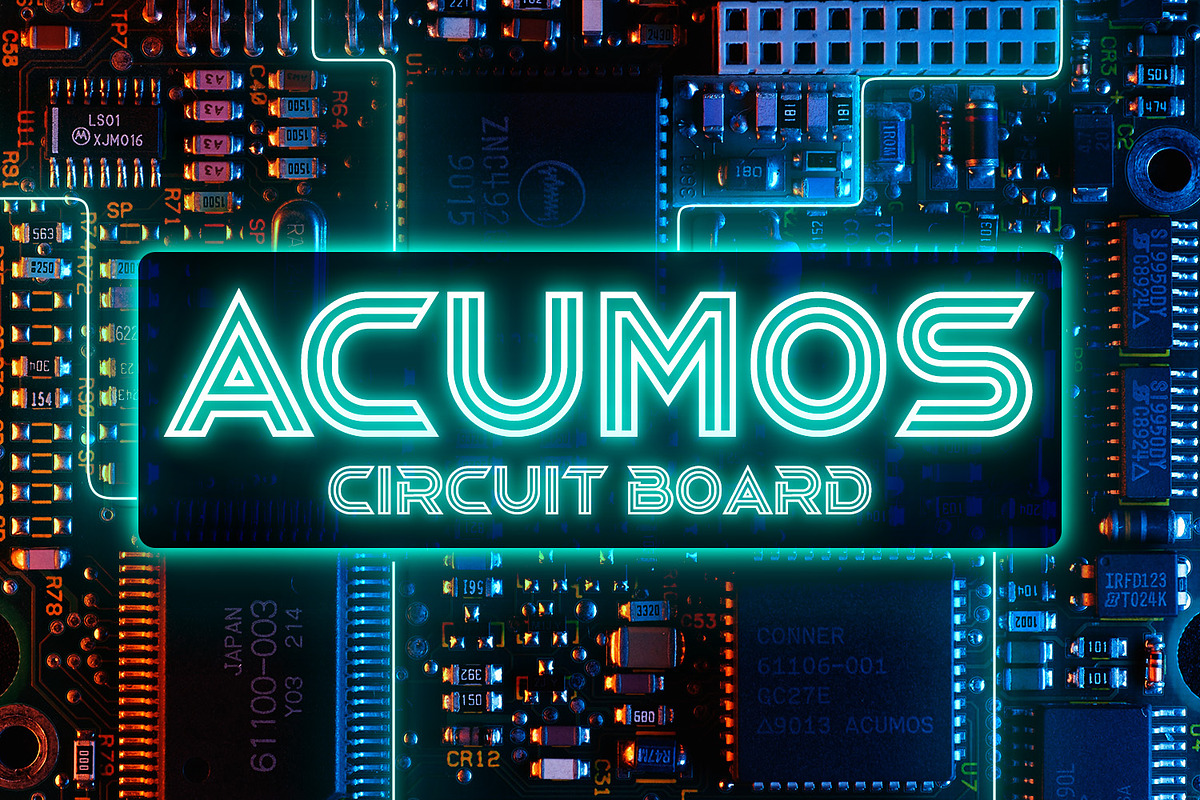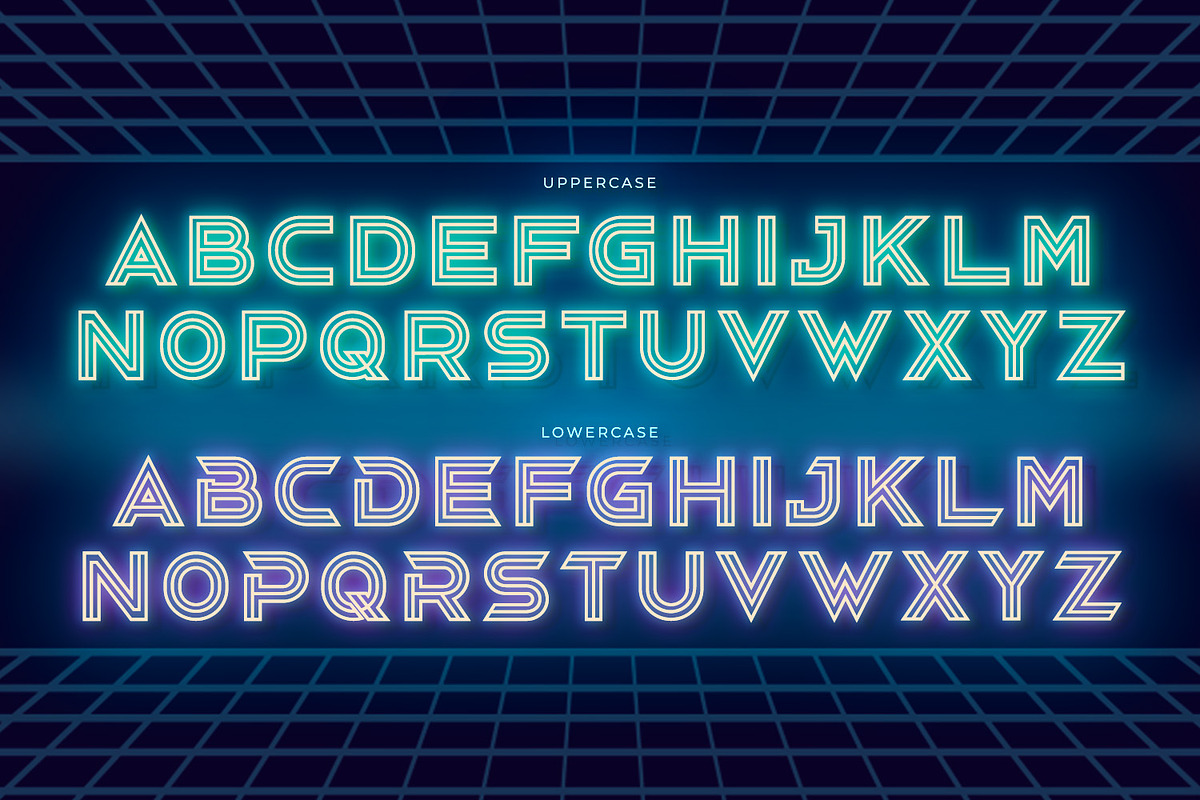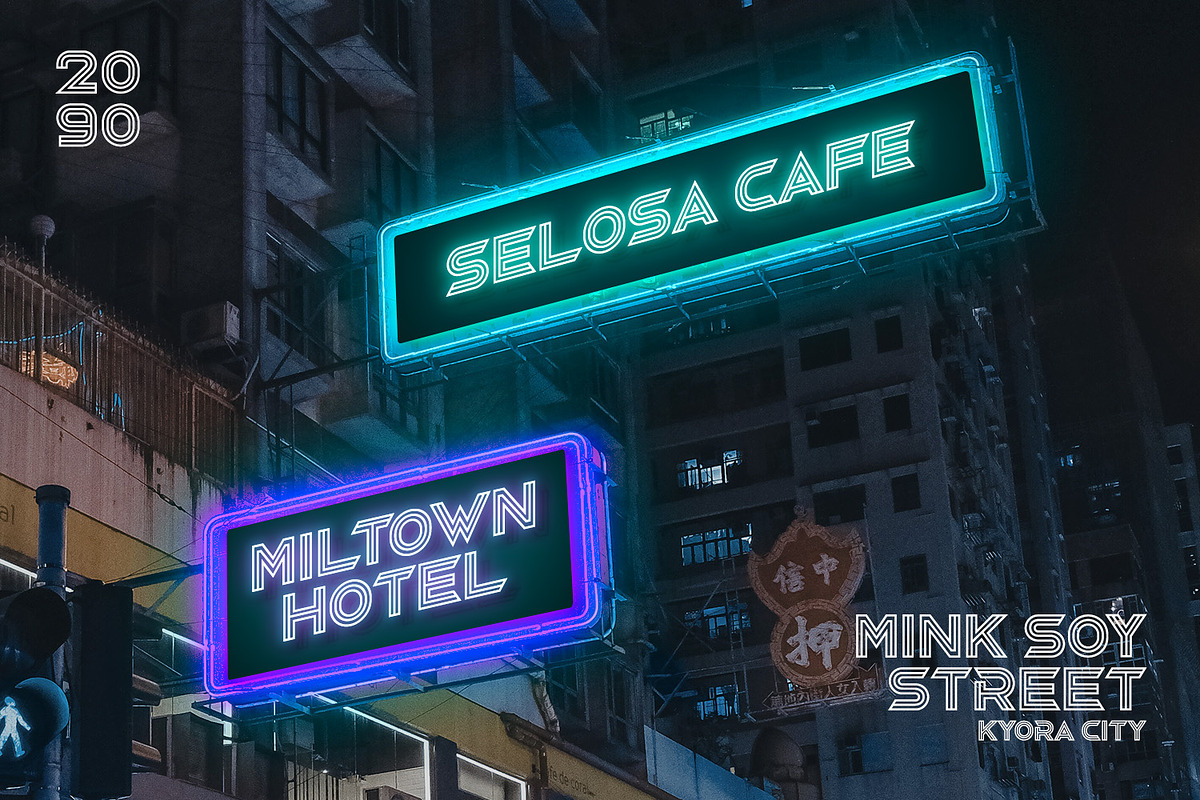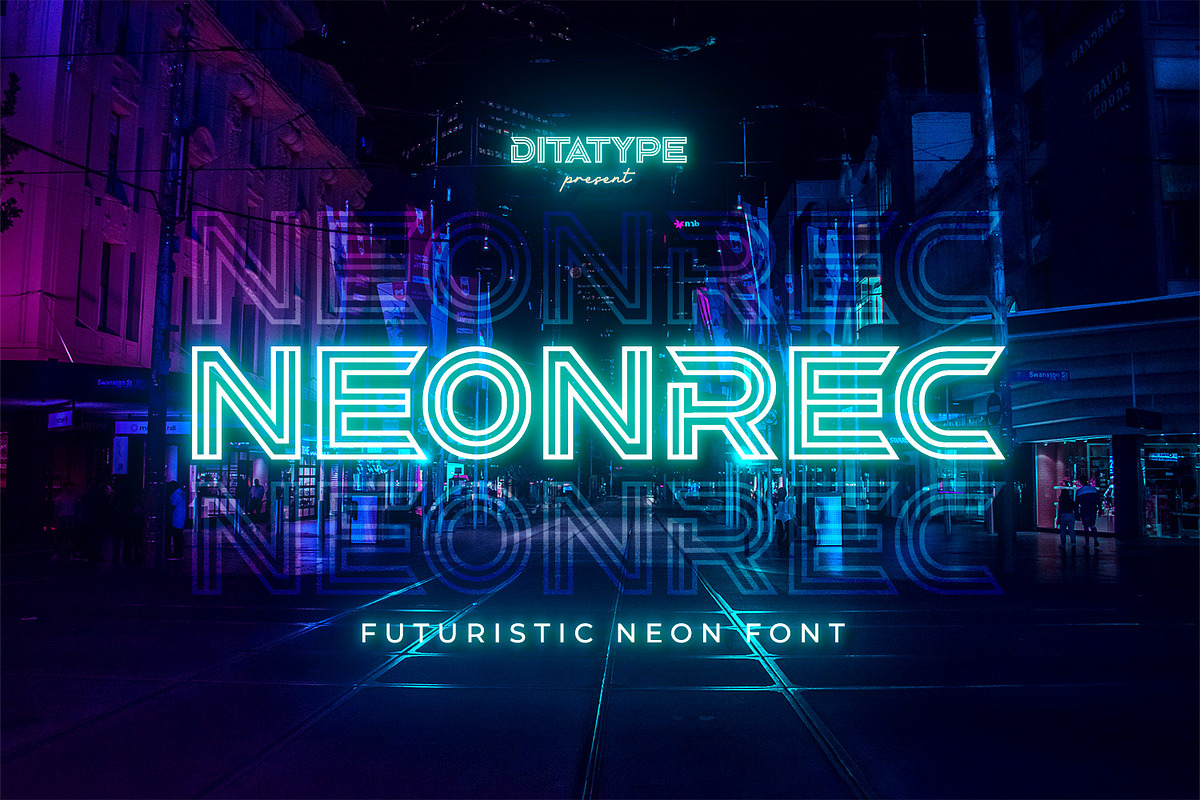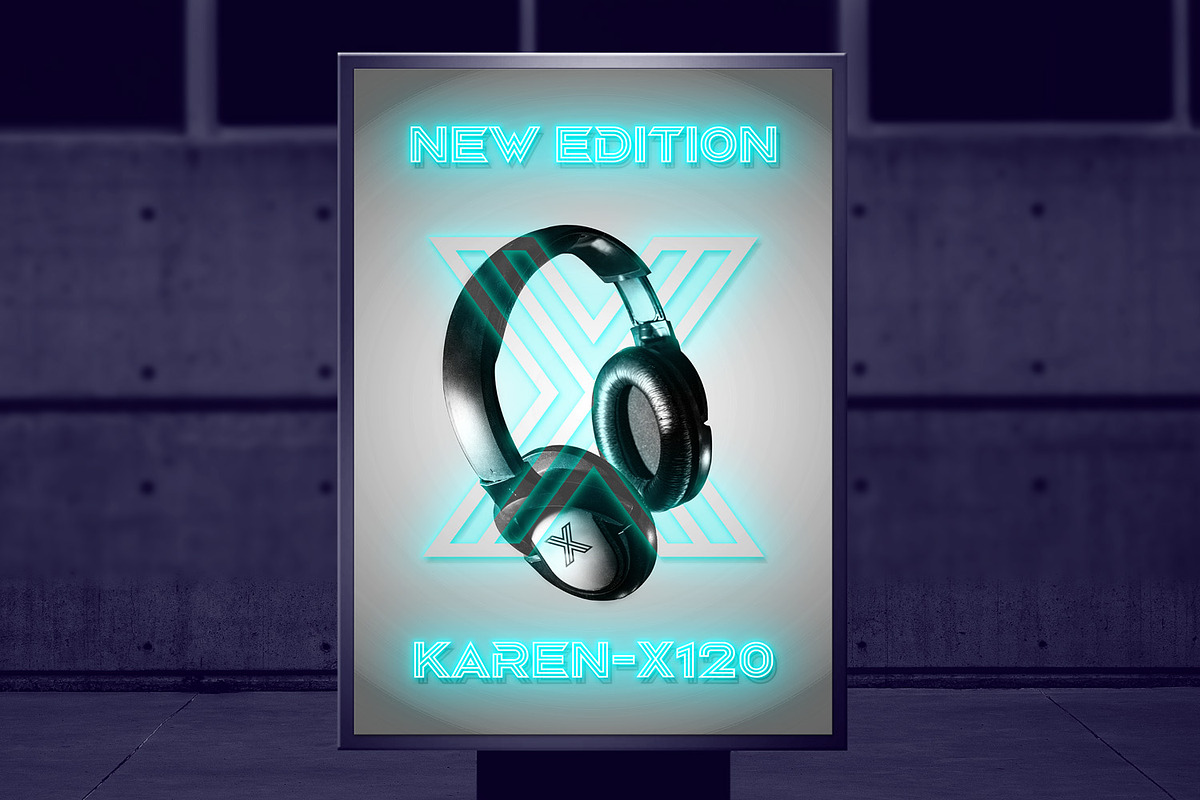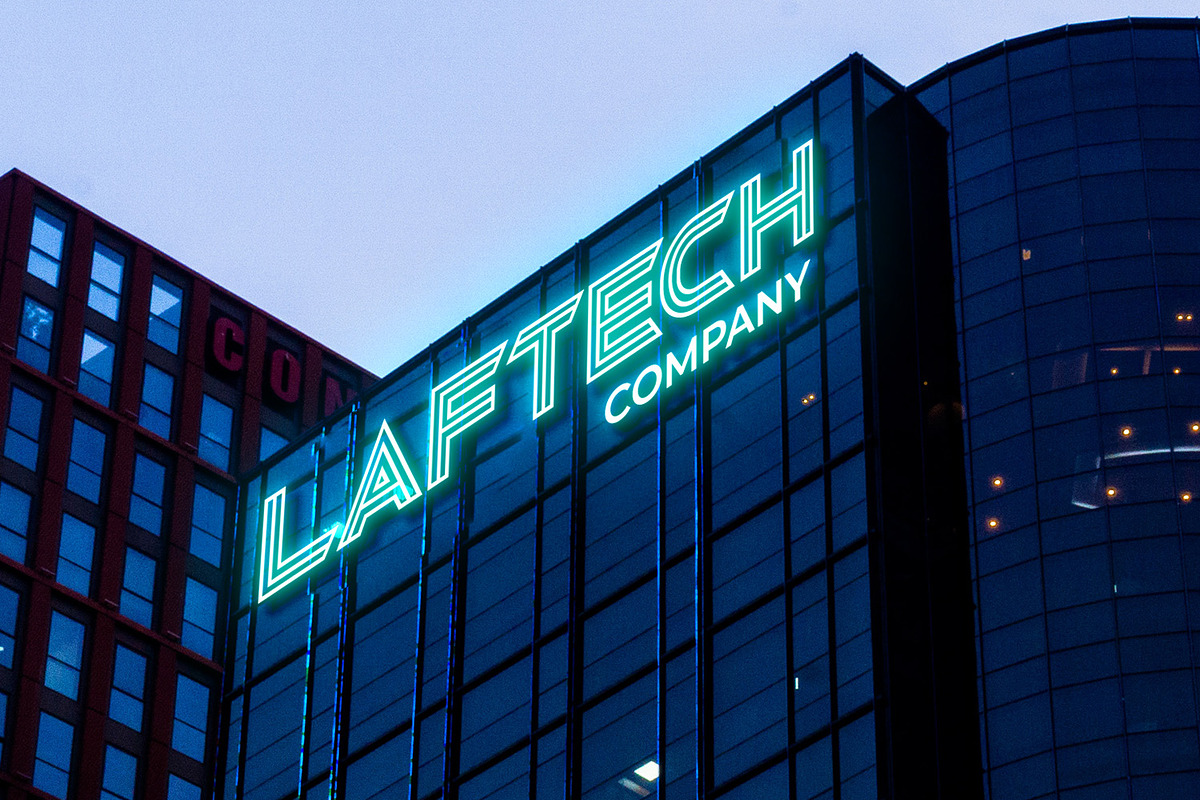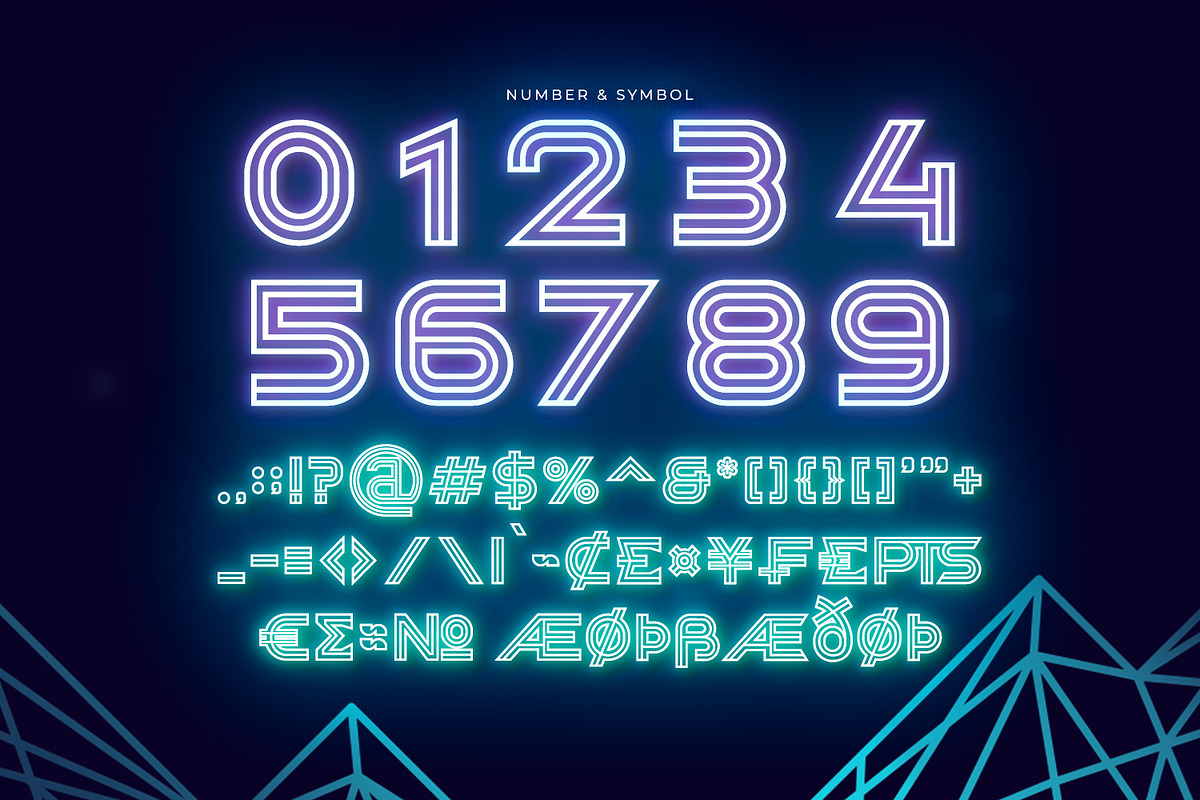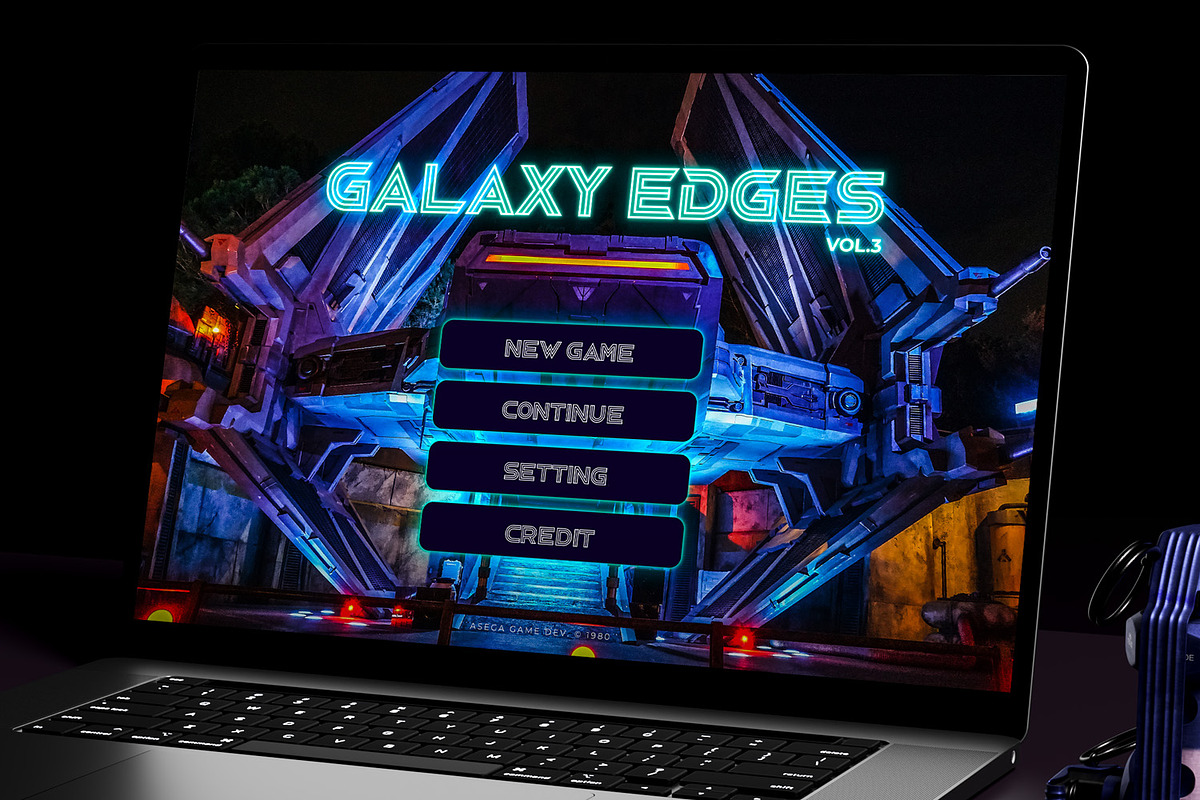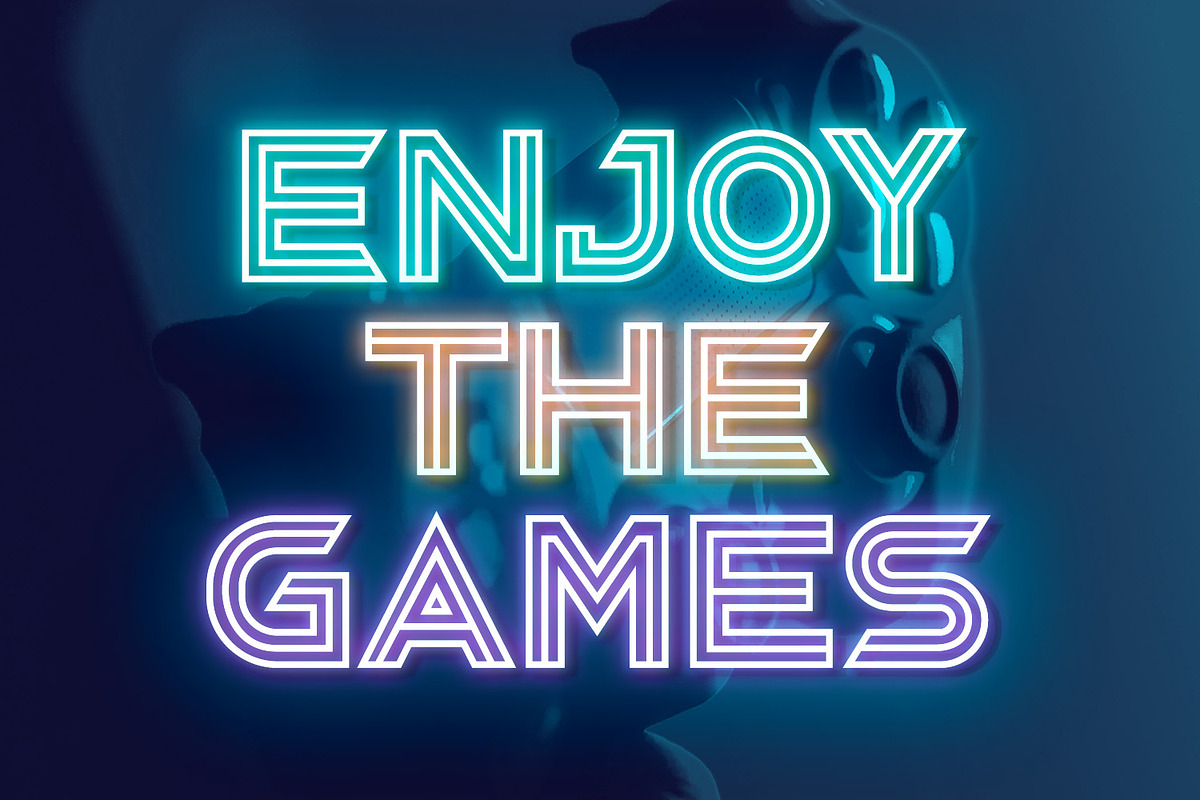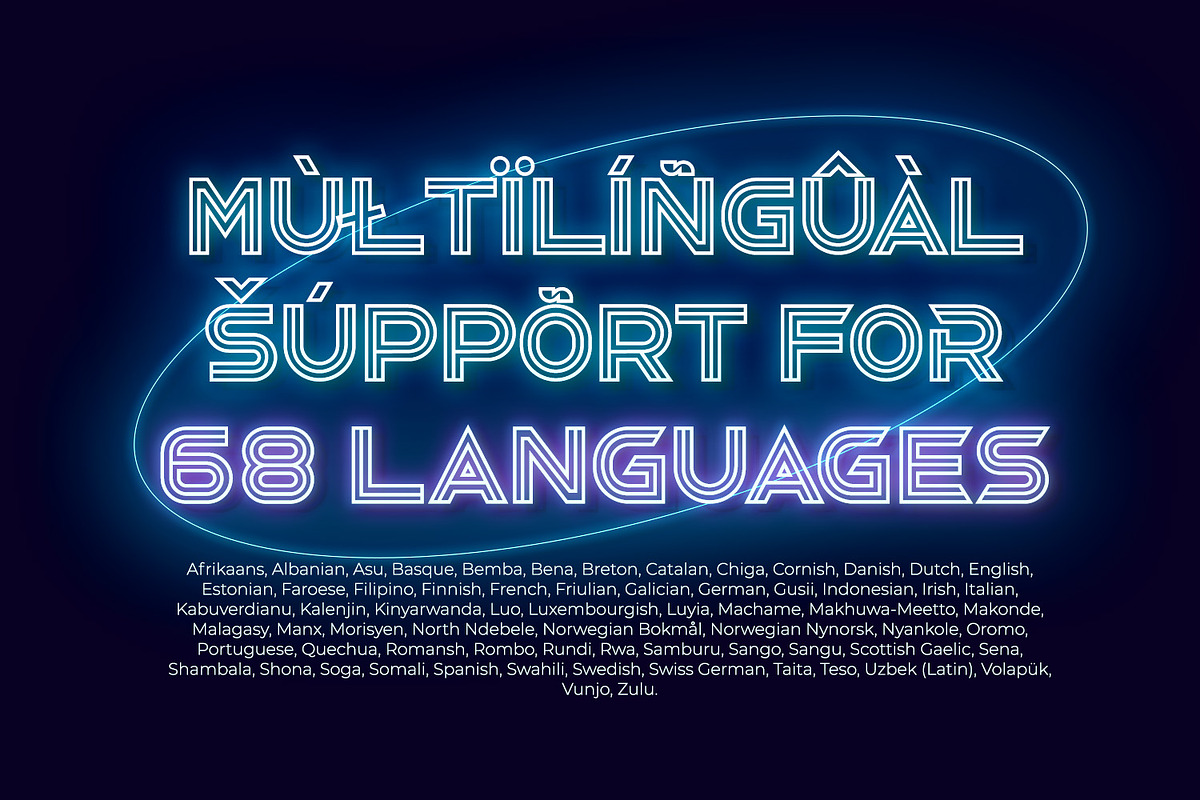
Neonrec
Neonrec is an innovative display font that merges futuristic aesthetics with the mesmerizing allure of neon lights. With its bold uppercase letterforms and a luminous neon backlight, this typeface commands attention, creating a visually stunning and forward-thinking experience. The special characteristic of this font lies in the sleek and cutting-edge design, embodying the essence of a futuristic world. Each letter is meticulously crafted with precision and sharp lines, exuding a sense of technological advancement and modernity. The neon backlight adds a striking visual element that elevates the font to new heights. Inspired by the captivating glow of neon lights, Neonrec infuses a sense of energy and innovation into each character. The luminous backlight creates a radiant glow that casts a captivating hue, reminiscent of the neon signs that adorn the streets of a futuristic metropolis. This futuristic neon effect adds depth and dimension to the font, creating an eye-catching visual impact.
Neonrec is perfect for attention-grabbing headlines, logos, and sleek branding applications that require a touch of futuristic sophistication. It is thrives in designs that embrace a forward-thinking and cutting-edge style. Whether you're creating posters, digital interfaces, sci-fi themed artwork, or anything in between, this font will add a captivating futuristic element that sets your project apart. It shines particularly bright in applications related to technology, gaming, science, and futuristic-themed designs. Find out more ways to use this font by taking a look at the font preview.